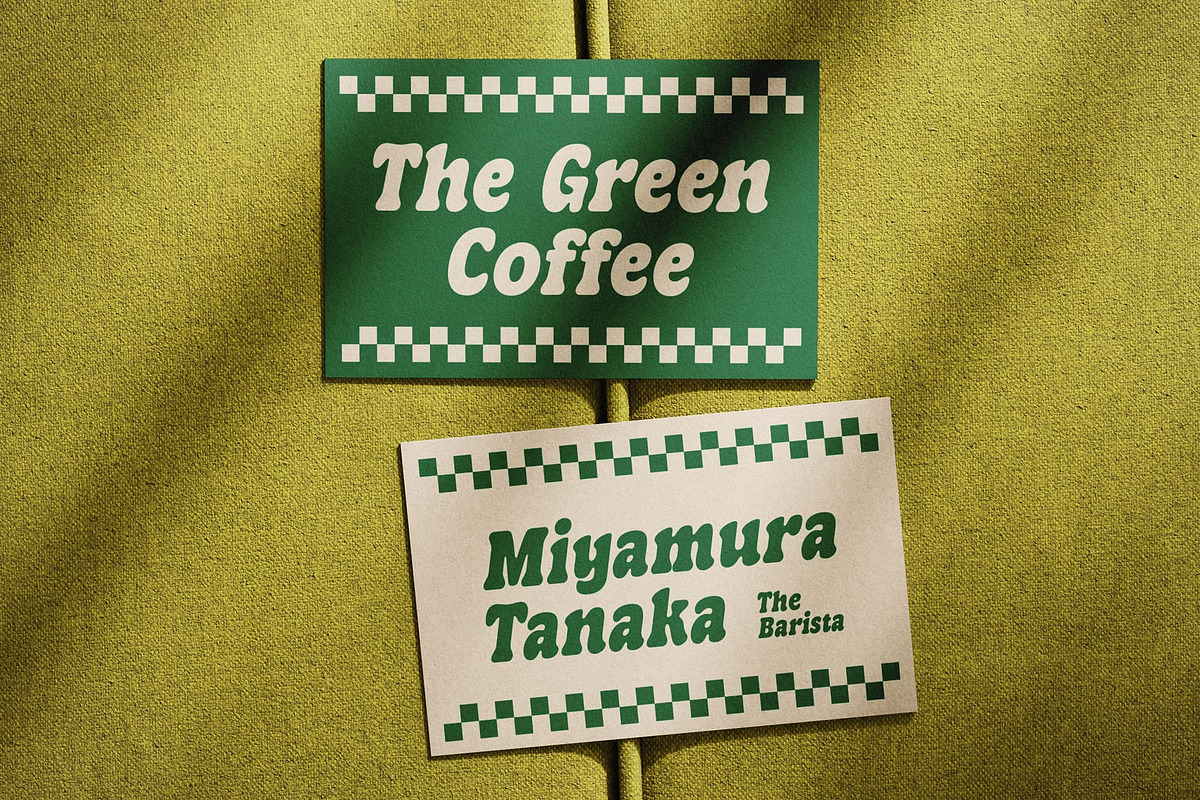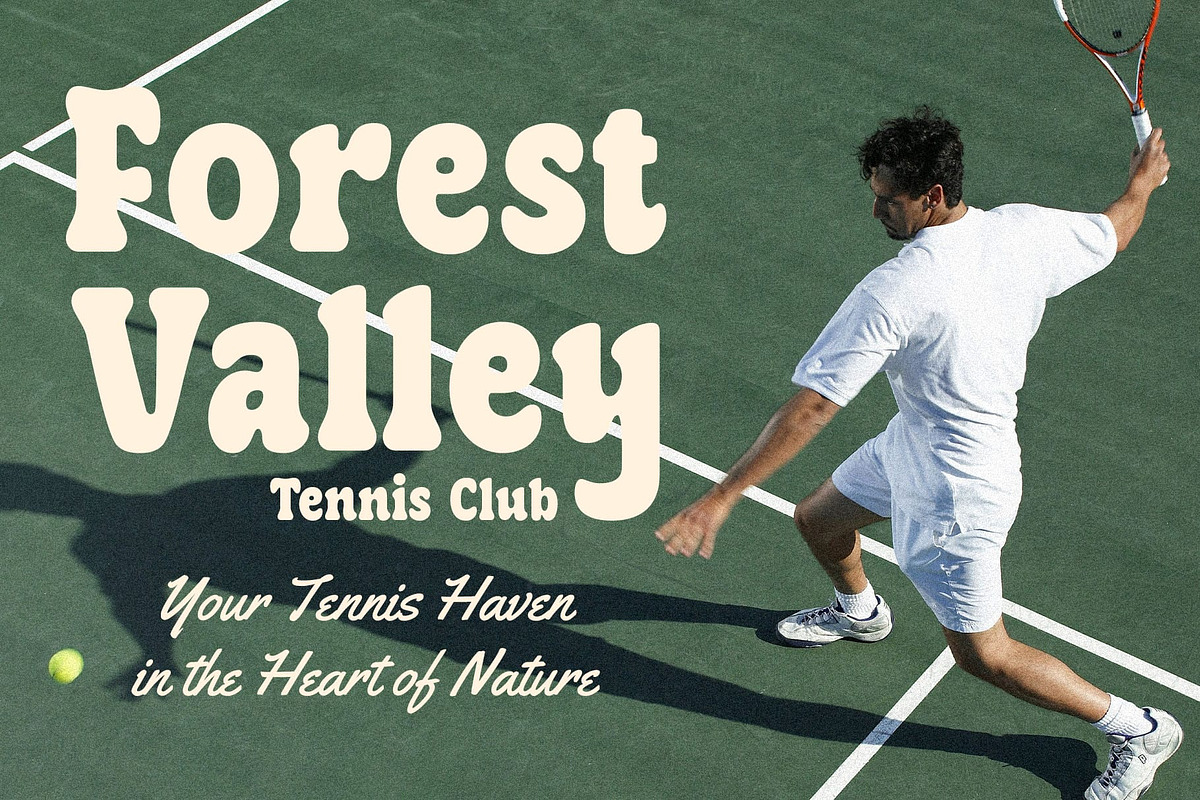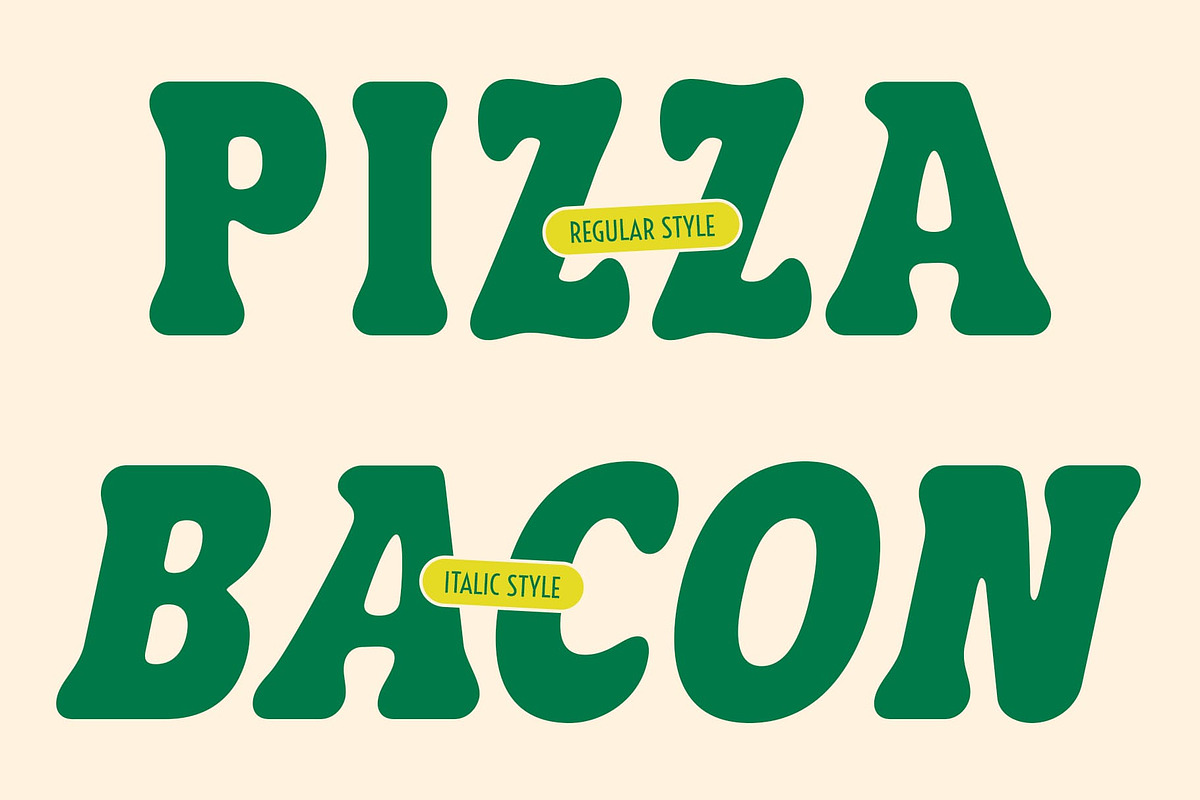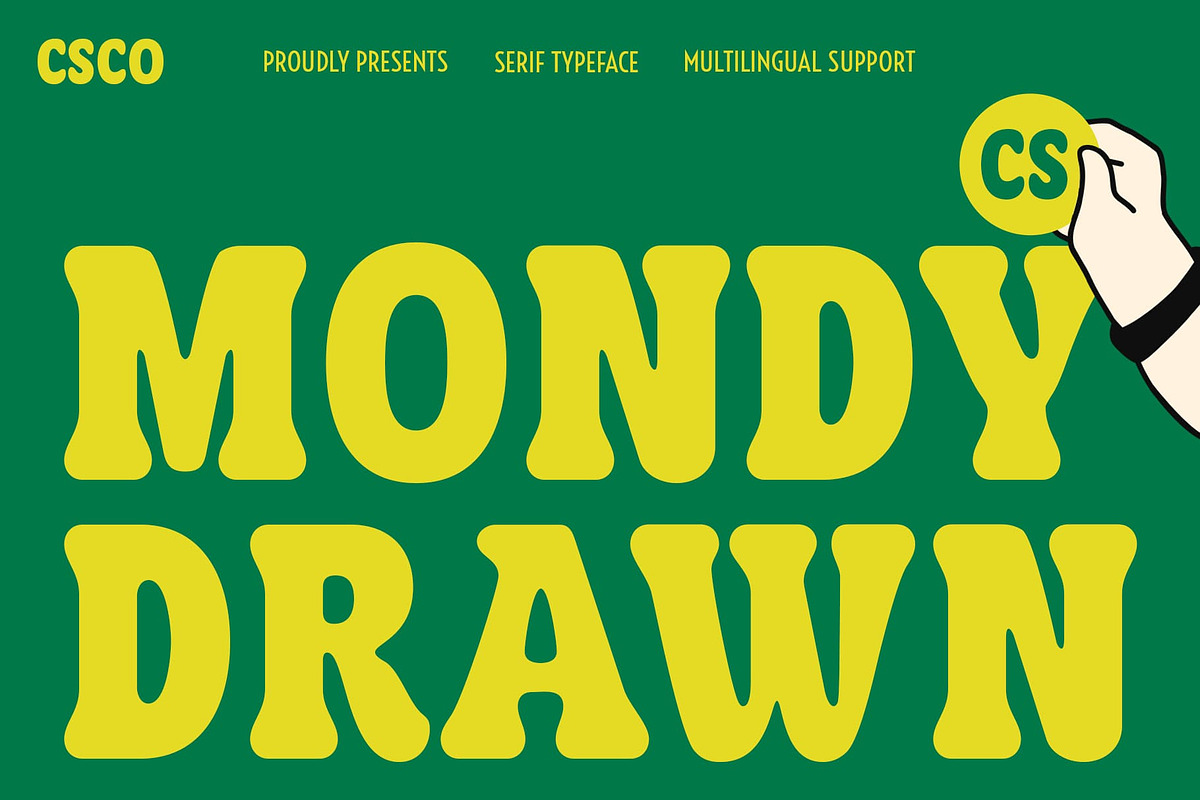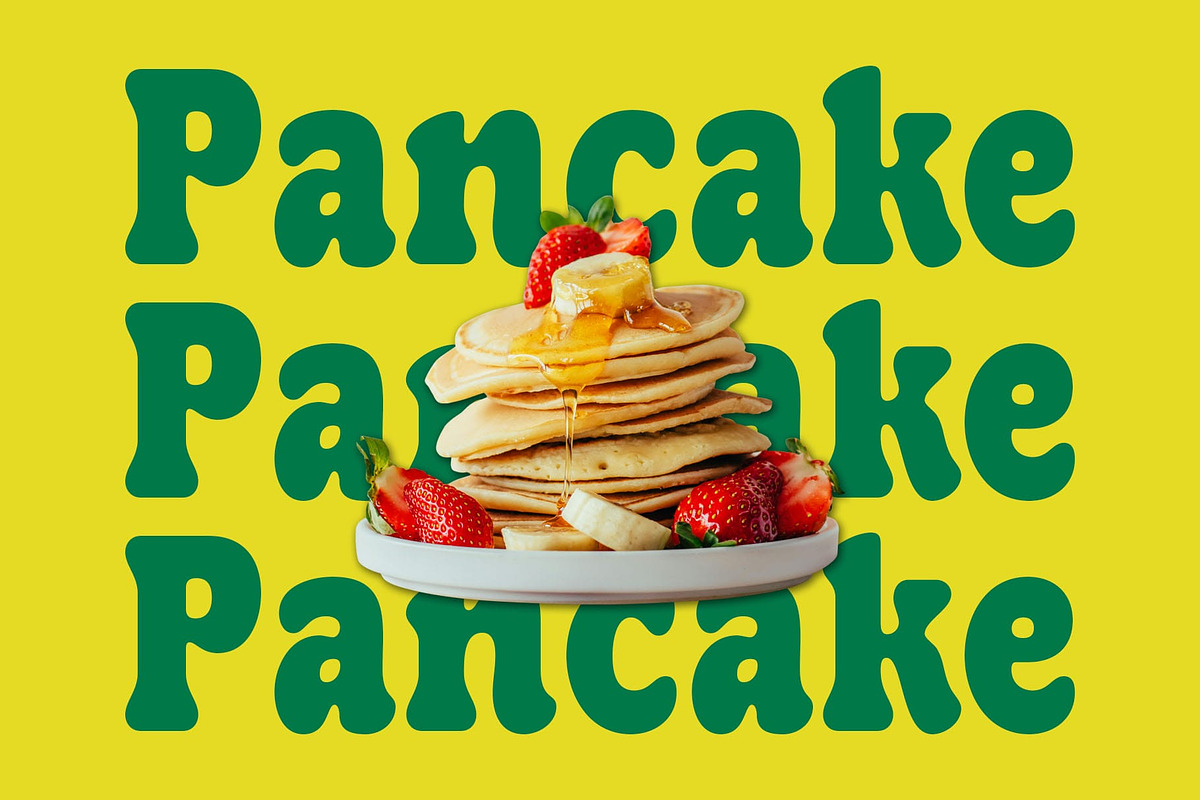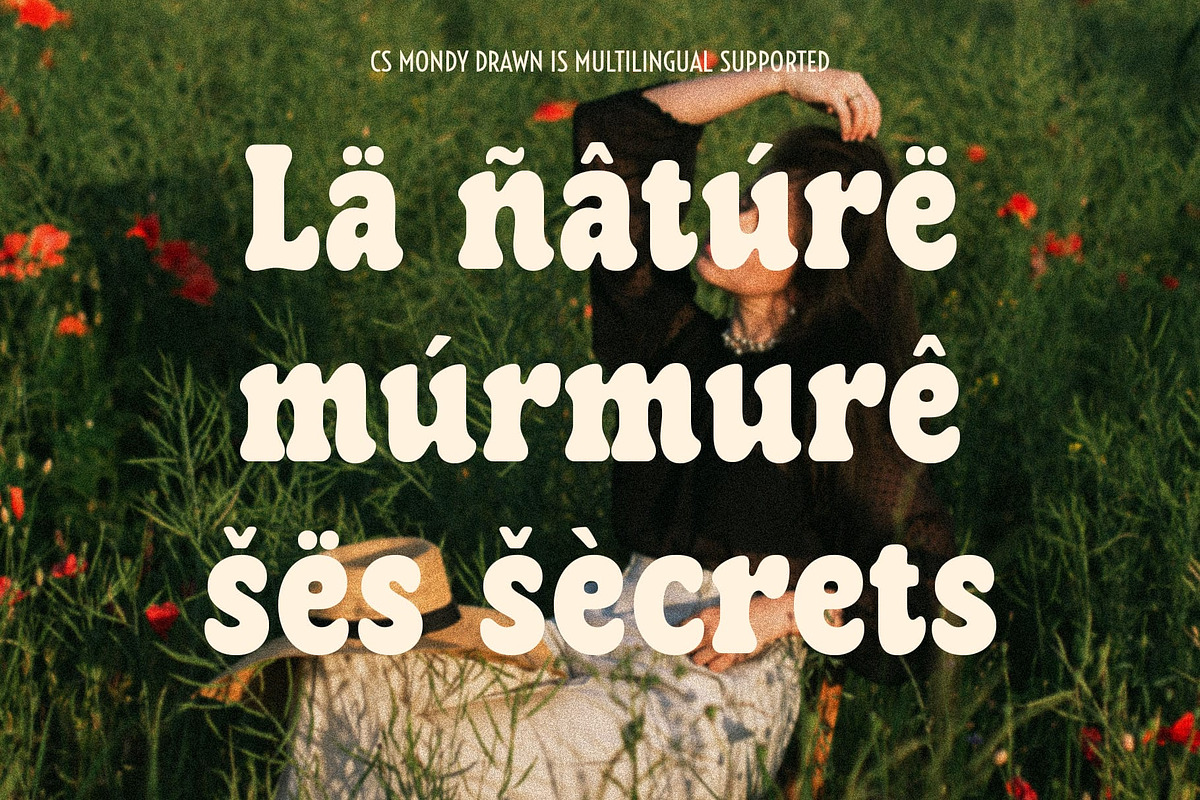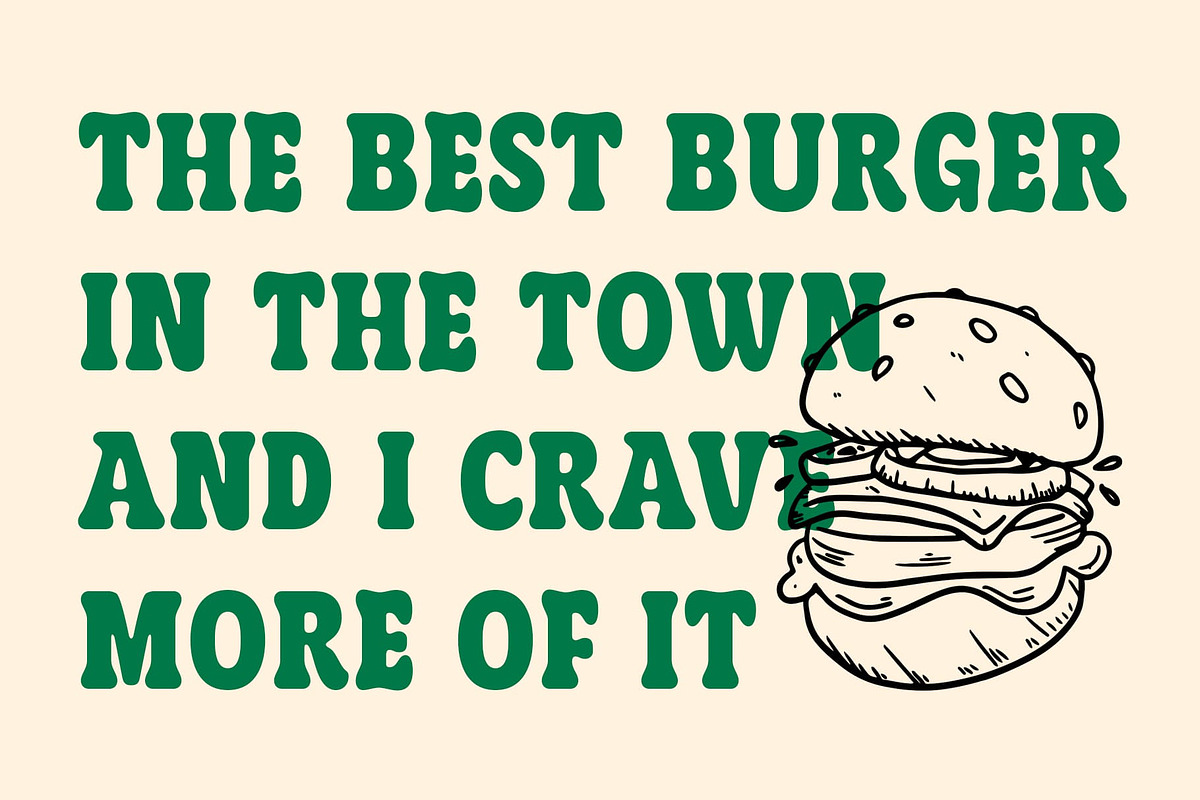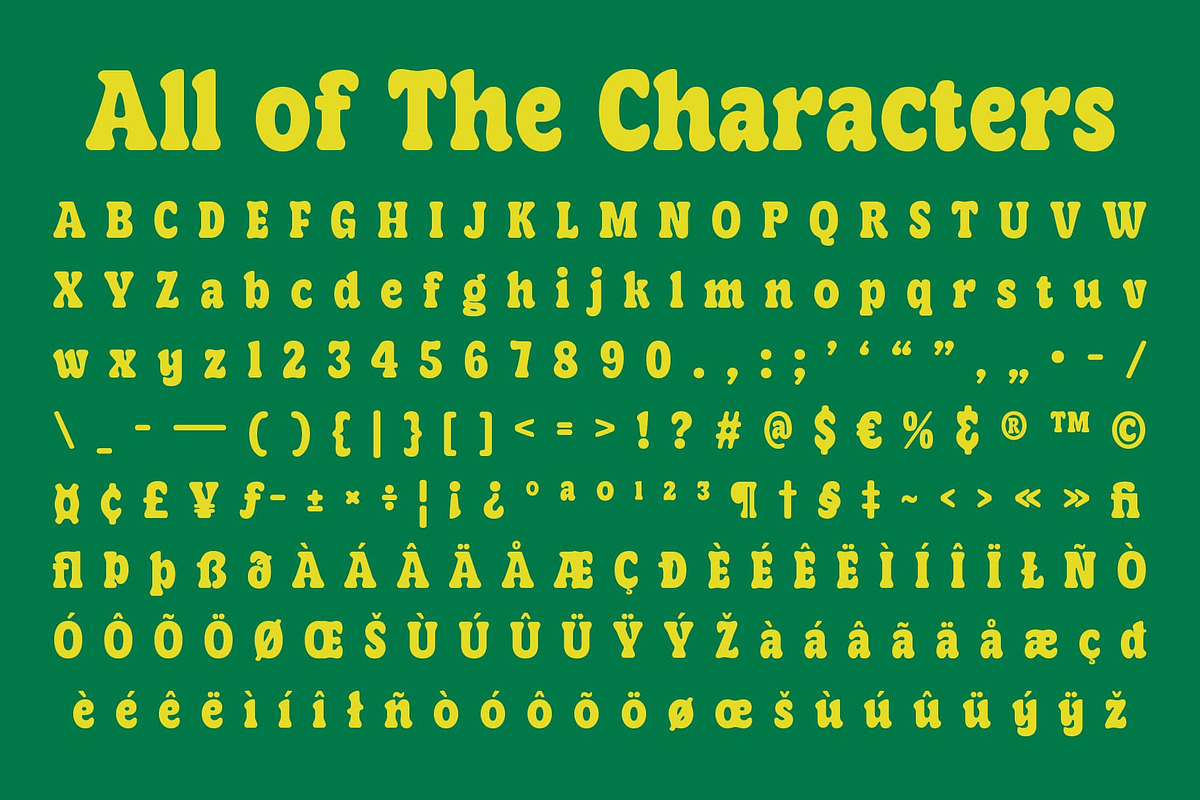
CS Mondy Drawn
CS Mondy Drawn: A Classic Serif with Retro Artistic Charm
Bold Letterforms with Rounded Terminals This font showcases bold serif letterforms that feel strong yet approachable. The addition of rounded terminals softens the look, balancing firmness with friendliness, making it suitable for both expressive headlines and timeless logos.
90s Retro Vibe with Nostalgic Warmth This font captures the playful yet stylish atmosphere of the 90s, delivering a retro vibe that feels warm and familiar. Its nostalgic undertone adds character and charm, perfect for brands or creative projects aiming to evoke memories of that iconic era while still feeling fresh and modern.
Drawn Effect for Artistic Expression Adding a hand-drawn texture gives this youthful font a distinctive artistic quality. The imperfect, crafted effect adds depth and individuality, transforming clean serif forms into something more expressive, organic, and visually engaging. This touch of handmade artistry makes it stand apart from traditional serif fonts.
Perfect for Creative Branding and Display From posters and logos to packaging and branding, this playful retro-chic font blends elegance, nostalgia, and creativity. It offers designers the versatility to create works that feel both classic and original. Its unique personality ensures designs remain memorable and full of character.